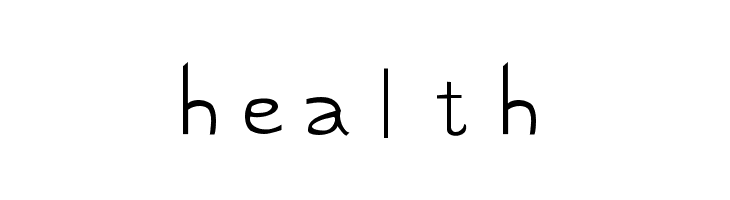
Cocoonian Font
A decorative, abstract font with a futuristic, alien-like appearance.
Final Front Laser Italic Font
A bold, italicized font with sharp angles and a futuristic design.
Final Front Gradient Italic Font
A futuristic, italicized font with a striped gradient effect and tight character spacing.
Final Front Laser Font
A futuristic and angular font with sharp edges and geometric forms.
Final Front Condensed Italic Font
A futuristic, angular, and condensed italic font with a bold, dynamic style.
Thecrownismine Final Regular Font
A whimsical, hand-drawn font with playful and irregular letterforms.
Final Front Expanded Font
A futuristic, angular font with sharp edges and expanded width.
Final Front 3D Italic Font
A bold, 3D italic font with a futuristic and dynamic style.
Final Front Super-Italic Font
A bold, italic font with sharp, angular lines and a futuristic style.
Creditverse Font
A bold, rounded font with a modern and friendly style.
TPF Vacuous Negative Font
A decorative font with characters enclosed in ovals, offering a bold and playful style.
World_of_Imagination Font
Finally Champions Font Regular Font
A whimsical, hand-drawn font with tall, narrow letters and playful curves.
Final Front Leftalic Font
A bold, futuristic font with angular, geometric shapes and a dynamic, three-dimensional effect.
Final Front Gradient Font
A futuristic, segmented font with a digital and geometric design.
Final Front Italic Font
A bold, italicized font with sharp, angular lines and a futuristic style.
LATODISEÑO FINAL Font
A bold, angular font with a graffiti-inspired, edgy design.
Finabilla Font
A handwritten, cursive script font with a dynamic and informal look.
Goldin Finance DEMO Storoke Font
A geometric, outlined font with a modern and technical style.
A decorative, cursive script font with elegant, flowing strokes.
Final Match Font